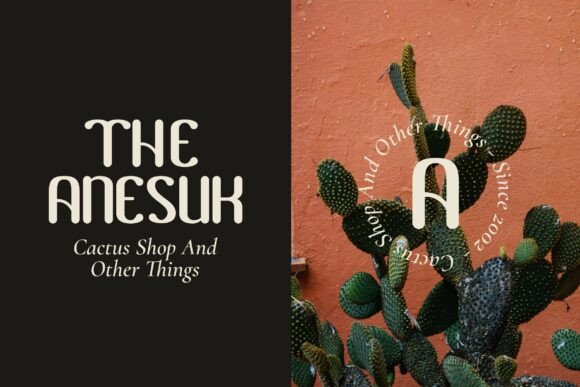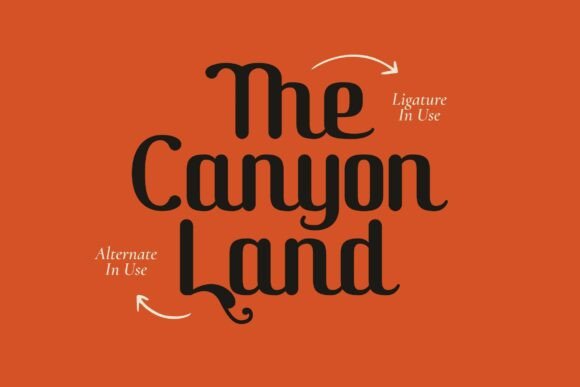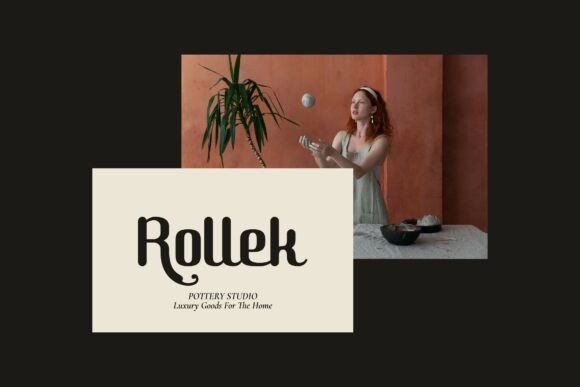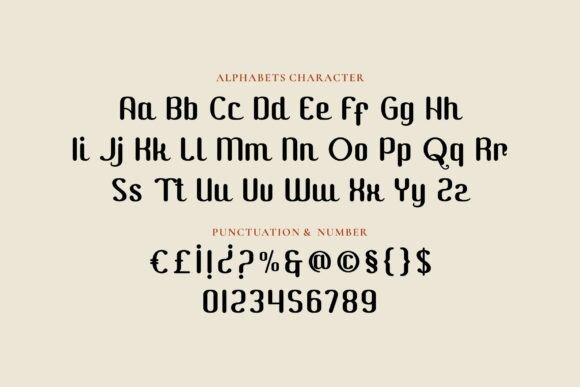
Eogud Guedilk Font: Elevate Your Design with a Unique Retro Serif
In the world of typography, fonts play a crucial role in conveying messages, evoking emotions, and creating lasting impressions. For designers and crafters seeking a distinctive and versatile typeface, Eogud Guedilk is an exceptional choice. This retro serif font, inspired by the flowing rhythm of Southeast Asian scripts like Javanese, offers a perfect blend of vintage charm and modern sophistication.
The Inspiration Behind Eogud Guedilk
Eogud Guedilk’s design is rooted in the ornate and curved terminals of traditional Southeast Asian scripts. The font’s creator aimed to capture the essence of Javanese script’s organic rhythm, infusing it with a sense of elegance and refinement. The result is a typeface that exudes a sense of nostalgia while remaining remarkably versatile.
Key Features of Eogud Guedilk
- Curved Terminals: Eogud Guedilk’s curved terminals add a touch of sophistication and fluidity to the font, making it perfect for designs that require a sense of movement and dynamism.
- Ornamental Swashes: The font’s ornamental swashes and alternates provide endless customization possibilities, allowing designers to create unique and captivating typography.
- Retro Serif: Eogud Guedilk’s retro serif design pays homage to classic typography while offering a fresh and modern take on traditional serif fonts.
Design Applications for Eogud Guedilk
Eogud Guedilk’s versatility makes it an excellent choice for a wide range of design applications, including:
- Vintage-Inspired Aesthetics: Create nostalgic and eye-catching designs for brands, packaging, or advertising with Eogud Guedilk’s retro charm.
- Contemporary Boutique Branding: Use Eogud Guedilk’s unique swashes and alternates to craft distinctive branding for modern businesses, such as boutique hotels, restaurants, or fashion labels.
- Poster Typography: Make a statement with Eogud Guedilk’s bold and ornate typography, perfect for posters, flyers, or any other print materials.
- Rustic Café Identity: Add a touch of warmth and coziness to your café’s branding with Eogud Guedilk’s earthy, vintage feel.
- Modern Pottery Studio Branding: Showcase your studio’s creativity and craftsmanship with Eogud Guedilk’s modern and artistic typography.
Tips for Working with Eogud Guedilk
- Experiment with Swashes: Don’t be afraid to try out different swashes and alternates to find the perfect combination for your design.
- Mix and Match: Combine Eogud Guedilk with other fonts to create visually appealing typography and add depth to your design.
- Pay Attention to Kerning: Ensure that your text is properly kerned to maintain Eogud Guedilk’s elegant and refined appearance.
Eogud Guedilk is a one-of-a-kind retro serif font that offers a unique blend of vintage charm and modern sophistication. Its curved terminals, ornamental swashes, and versatile design make it an excellent choice for designers and crafters seeking to create memorable and captivating typography. Whether you’re working on a vintage-inspired project or a modern branding campaign, Eogud Guedilk is sure to make your message stand out.